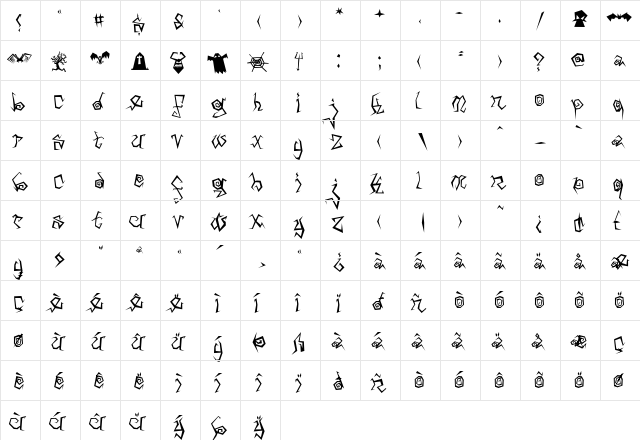
Arachnids Regular
| Designer | M害 Greb䣫 |
Design Context for Arachnids Typeface
Arachnids is a composed and adaptable typeface that performs quietly and consistently across a wide range of design contexts.